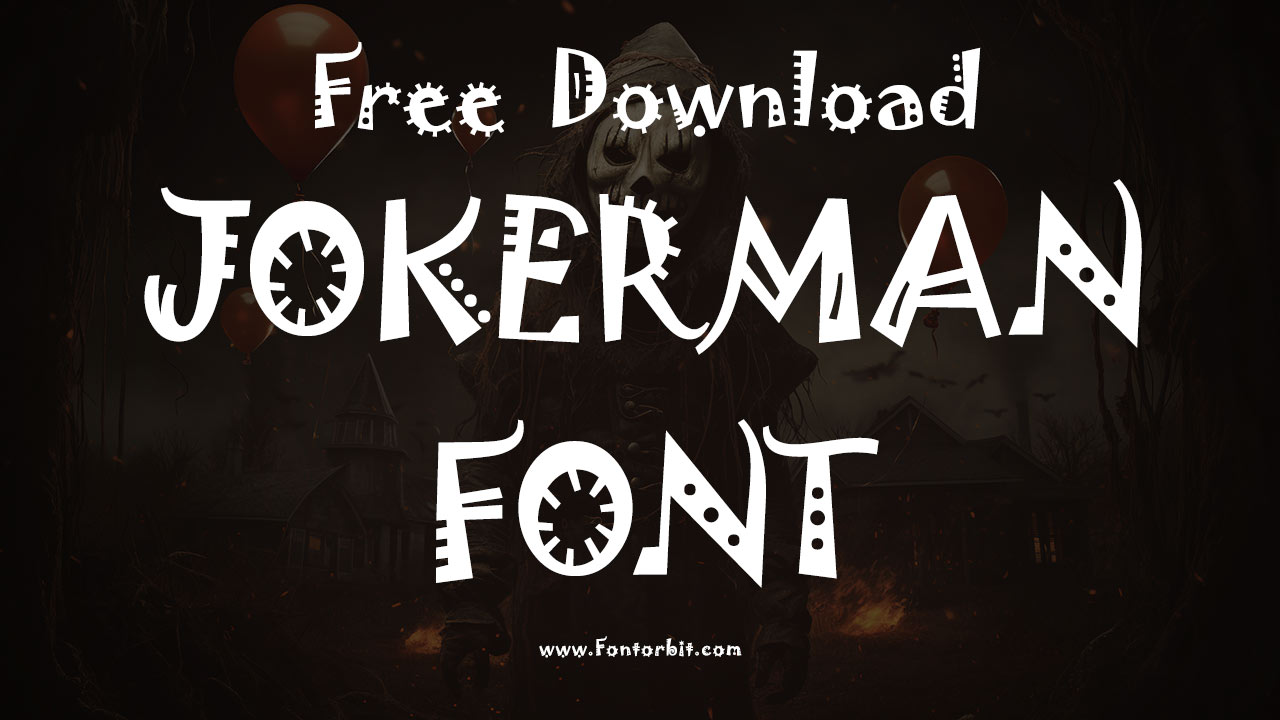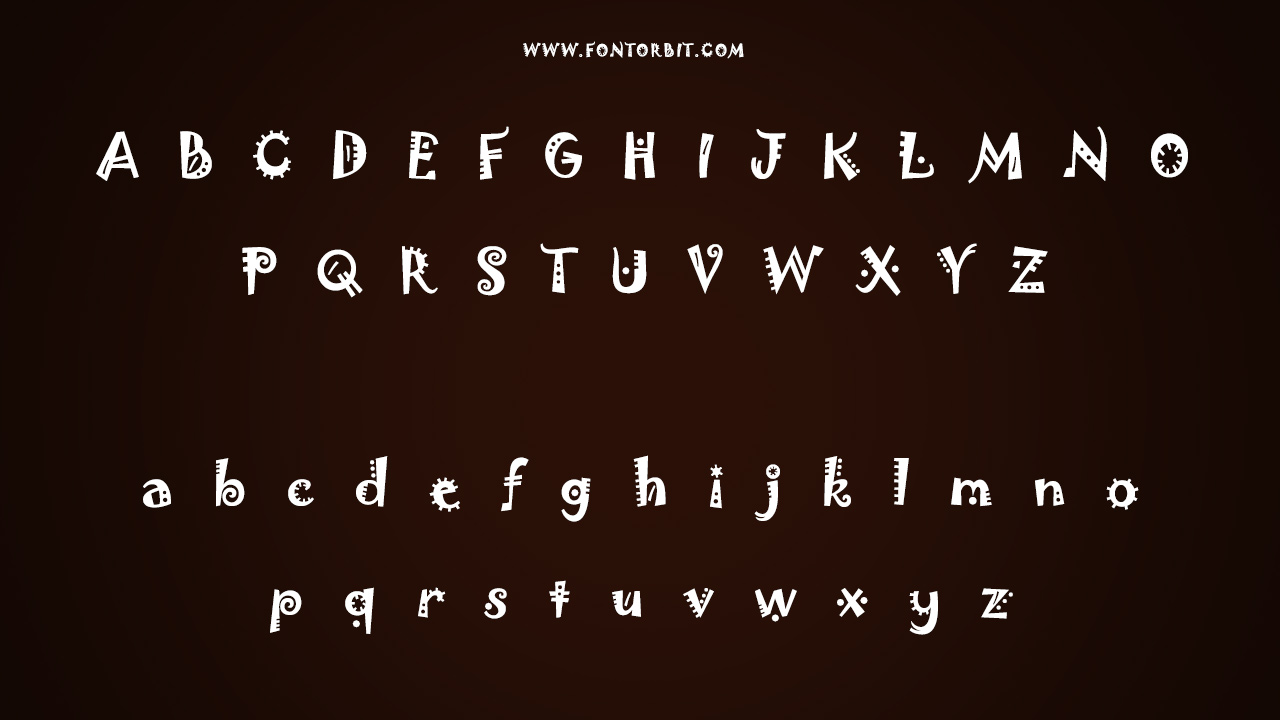
The Jokerman Font, designed by Andrew K. Smith, is a distinctive decorative typeface known for its playful and whimsical design. Featuring dots, spirals, and intricate line work, Jokerman is perfect for adding a touch of fun and excitement to your projects.
This decorative display typeface shines in large sizes, making it ideal for eye-catching headlines, playful signage, and unique branding. Its fanciful design elements create a lively and energetic effect, enhancing visual appeal with a touch of eccentricity.
Jokerman Font excels in creating vibrant and engaging display designs. Its unique character forms make it suitable for humour-filled projects, playful signage, and any context where a lively, eye-catching font is desired. It works well in contexts that benefit from a whimsical and dynamic touch.
Jokerman Font’s energetic and whimsical style stands out, making it an excellent choice for decorative and playful applications. Its distinctive design adds a unique flair to a variety of projects, ensuring it captures attention and conveys a sense of fun.
1.What Is The Jokerman Font?
Jokerman is a decorative display typeface by Andrew K. Smith, characterized by its playful and intricate design, featuring dots, spirals, and unique line work.
2.How To Choose The Right Size For Jokerman Font?
Jokerman is best suited for large sizes to fully showcase its decorative elements, making it ideal for headlines, signage, and other prominent text applications.
3.What Are The Key Features Of The Jokerman Font?
Jokerman features fanciful internal and external elements like dots and spirals, providing a playful and dynamic look that is ideal for engaging and humorous designs.
4.How To Use The Jokerman Font In Design?
Use Jokerman to create vibrant headlines, playful signage, and unique branding to achieve a lively and eye-catching appearance.
5.What Are The International Language Support Options For The Jokerman Font?
Jokerman supports Latin-based languages and is ideal for decorative use, with a focus on English text.